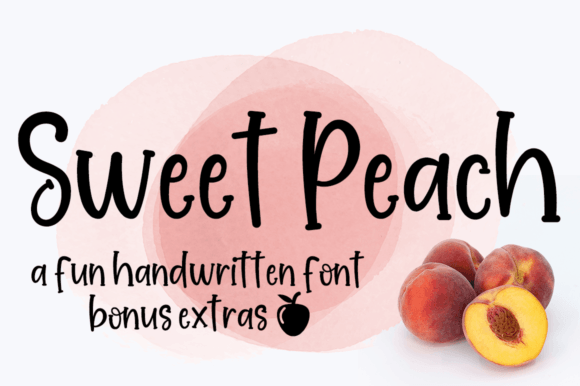
Introducing Sweet Peach Font, the ultimate choice for those seeking a touch of whimsy and charm in their designs. With its unique and playful nature, this serif font is guaranteed to captivate and inspire users across various creative endeavors.
Created by AM Designs, Sweet Peach Font stands out from the crowd with its distinct and quirky appeal. Whether you're designing a logo, crafting invitations, or adding a personal touch to your social media posts, this font effortlessly adds a delightful touch to any project.
Let your imagination run wild as Sweet Peach Font effortlessly adapts to different contexts, making it the perfect companion for all your creative ventures. Its versatility knows no bounds, allowing you to explore countless design possibilities.
With Sweet Peach Font, you'll instantly inject a sense of joy and vibrancy into your work. Its lively curves and elegant serifs create an irresistible visual appeal, leaving a lasting impression on anyone who lays eyes on it.
Stand out from the crowd with fonts that truly shine. Sweet Peach Font offers a refreshing departure from the ordinary, making it a must-have for those looking to make a statement. Its unique flair effortlessly draws attention and sets your designs apart from the rest.
Designed with utmost precision and attention to detail, Sweet Peach Font offers a seamless and pleasurable user experience. Its single path design ensures smooth and hassle-free usage, making it a favorite among Cricut enthusiasts.
Not only does Sweet Peach Font add a touch of playfulness to your designs, but it also evokes a sense of nostalgia and warmth. Its charming and delightful nature instantly transports users to a world filled with happy memories and carefree moments.
Unlock your creative potential with Sweet Peach Font today. Whether you're a seasoned designer or just starting your creative journey, this font is sure to ignite your imagination and bring your ideas to life.
Don't settle for ordinary fonts when you can embrace the extraordinary. With Sweet Peach Font, you'll unleash your creativity and leave a lasting impression on your audience. Download now and witness the magic of this whimsical serif font.